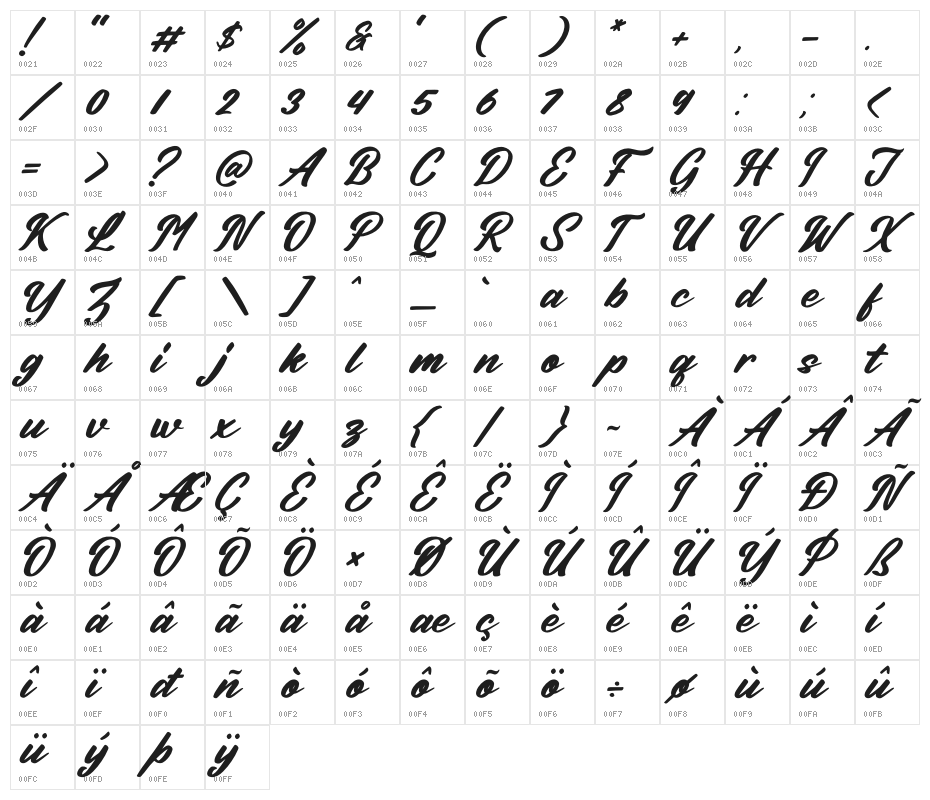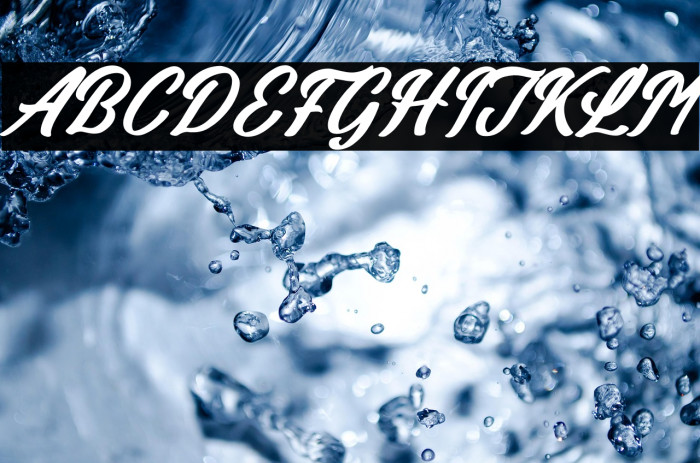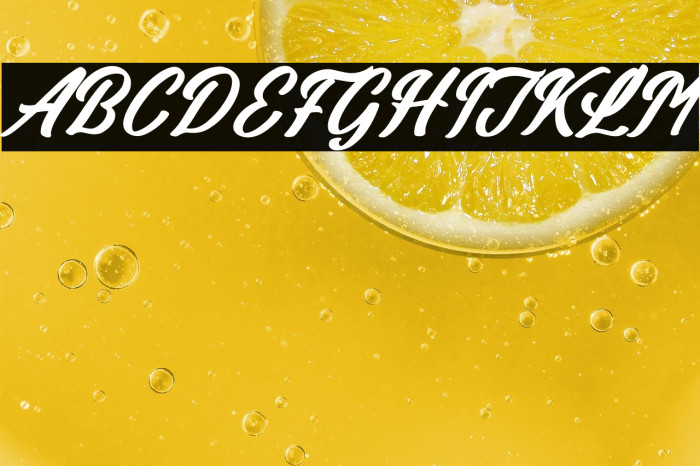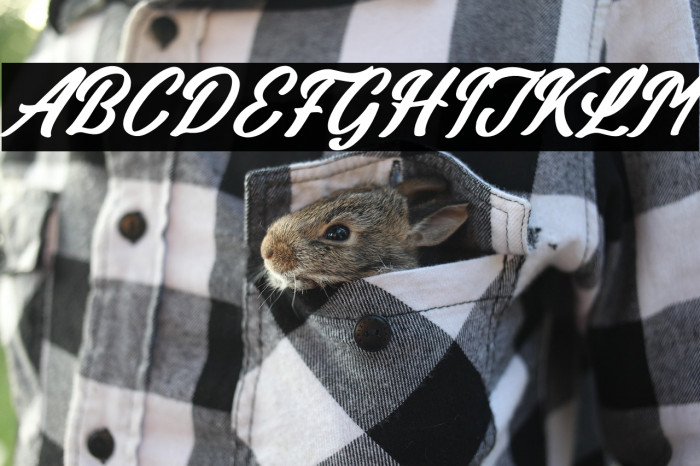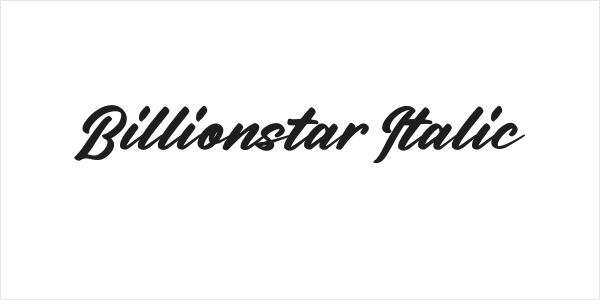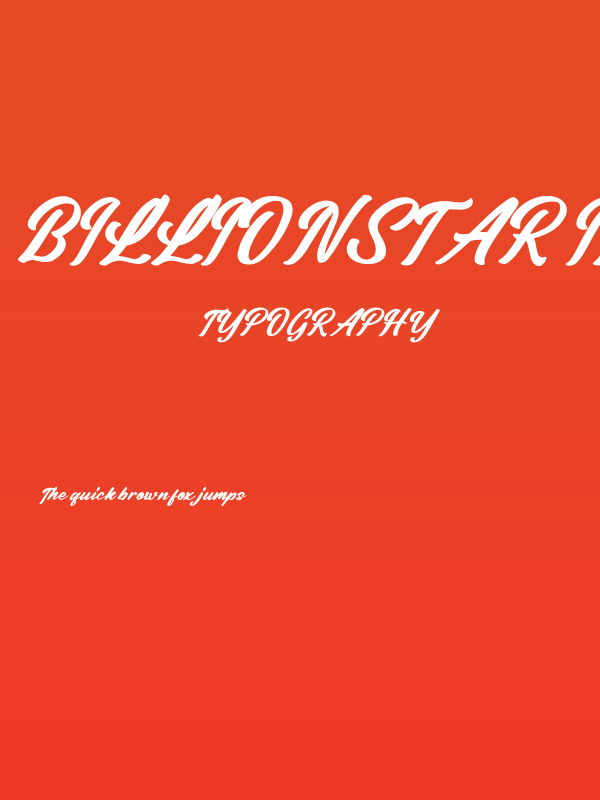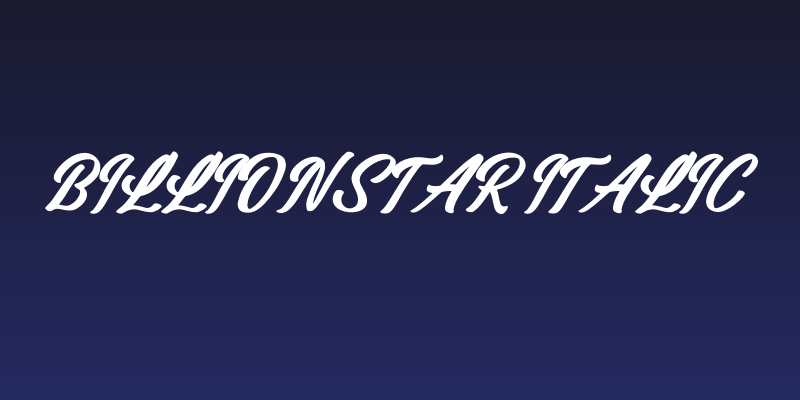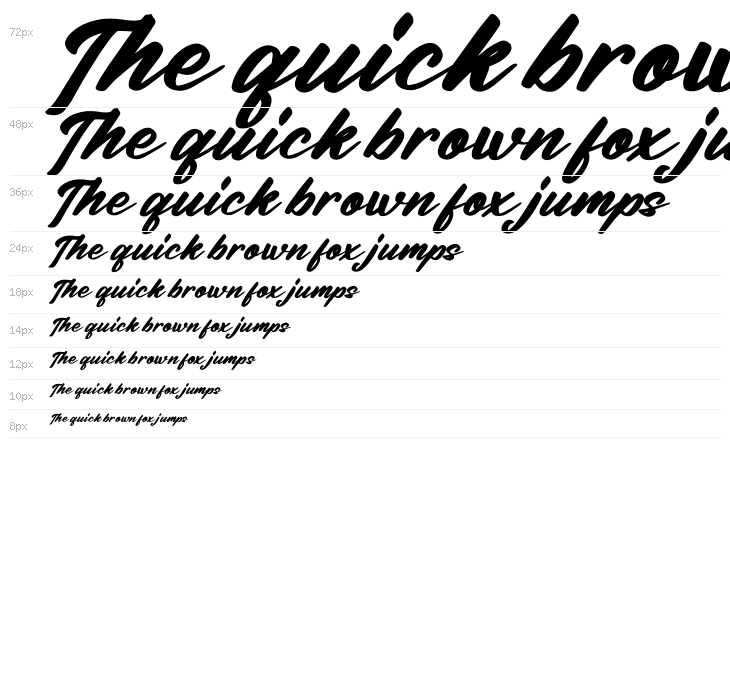
Billionstar Italic Font
Billionstar Italic Description
This font features a bold, flowing script style with a pronounced slant, giving it an elegant and dynamic appearance. The characters are connected, creating a seamless and fluid look that mimics handwriting. The strokes are thick and consistent, providing a strong visual impact. The uppercase letters are slightly larger and more ornate, while the lowercase letters maintain a smooth and cohesive flow. The numerals and special characters are designed to match the overall style, ensuring uniformity across all text. This font is suitable for projects that require a touch of sophistication and flair.
| Overall Style | Elegant, Decorative |
| Proposed Projects | Ideal for wedding invitations, branding, logo design, and elegant stationery. |